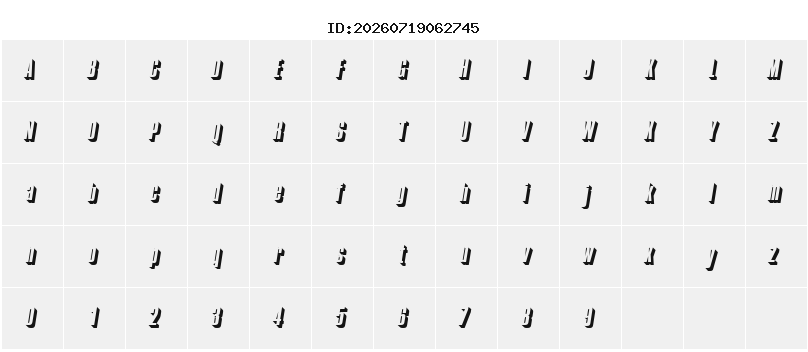
About CompactaOnlShaDReg.ttf
CompactaOnlShaDReg.ttf is a modern, elegant sans-serif font designed for ultimate readability and visual harmony. Perfect for branding, headlines, web design, and print materials.